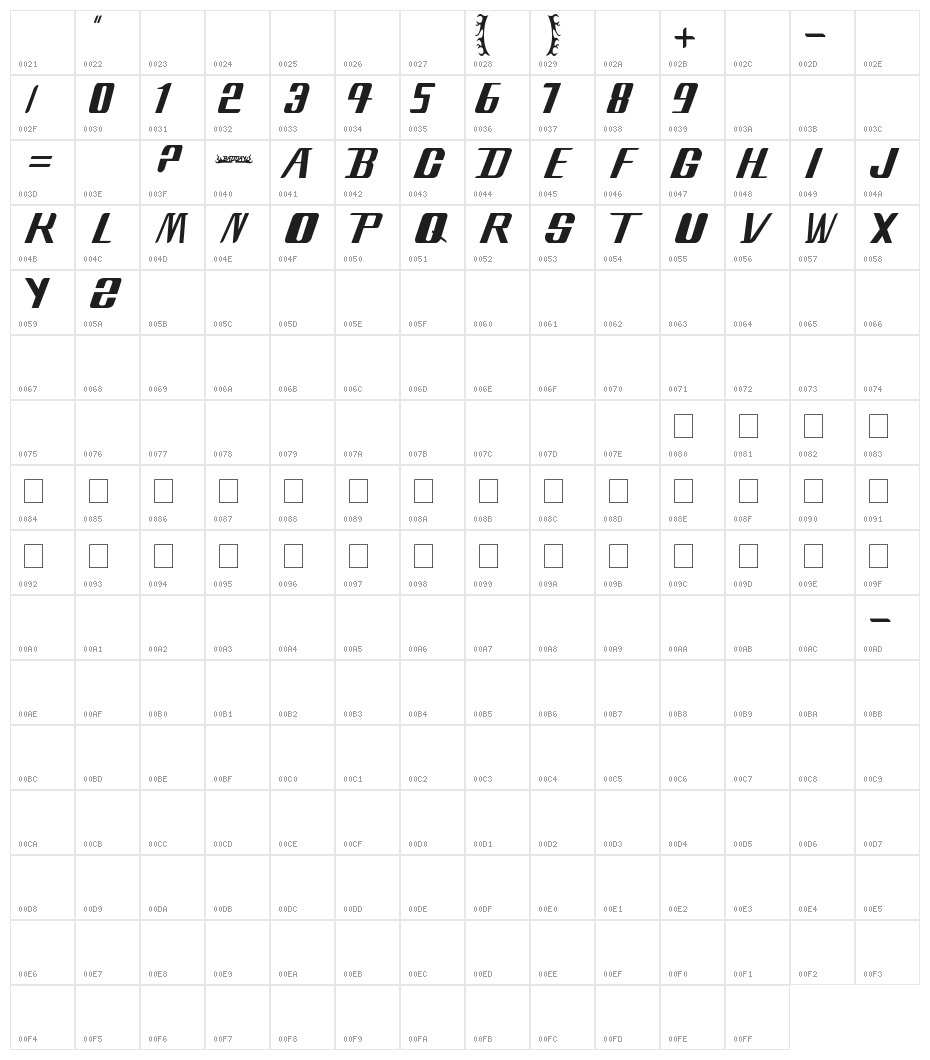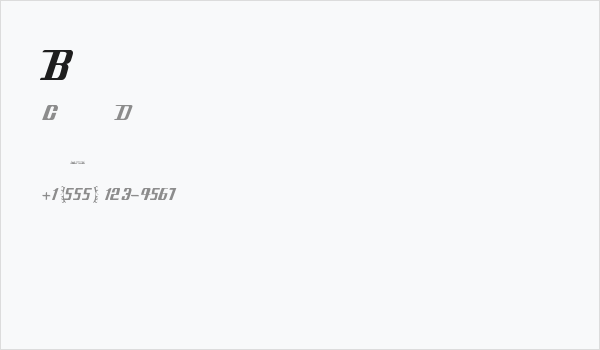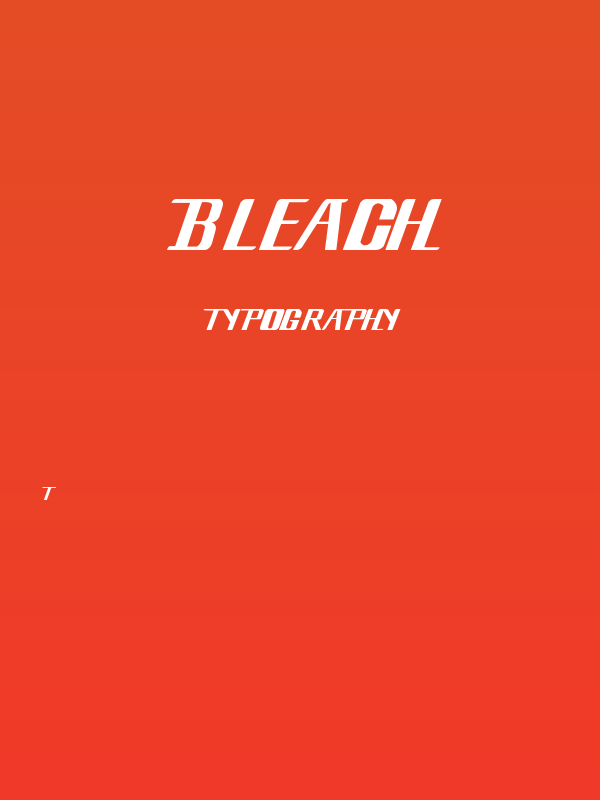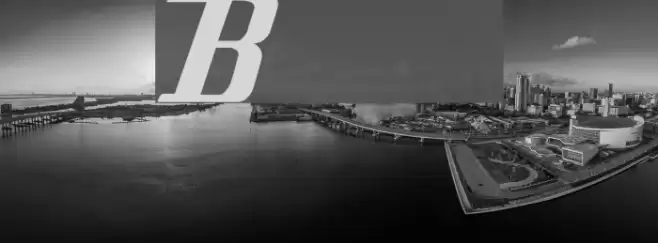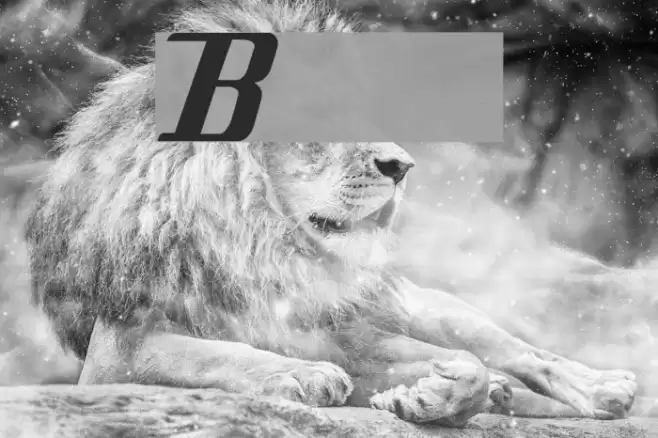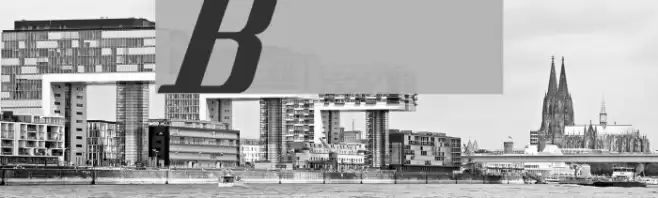
Bleach Font
Bleach Description
This font features a bold and dynamic design with a distinct slant, giving it a sense of motion and energy. The characters are wide and have a strong presence, making them ideal for attention-grabbing headlines or logos. The uppercase letters are particularly striking, with sharp angles and a futuristic feel. The numerals and special characters maintain the same boldness, ensuring consistency across all text elements. The overall style is modern and edgy, suitable for projects that require a bold statement.
| Width | Expanded |
| Proposed Projects | Ideal for sports branding, action movie posters, automotive logos, and dynamic advertising campaigns. |